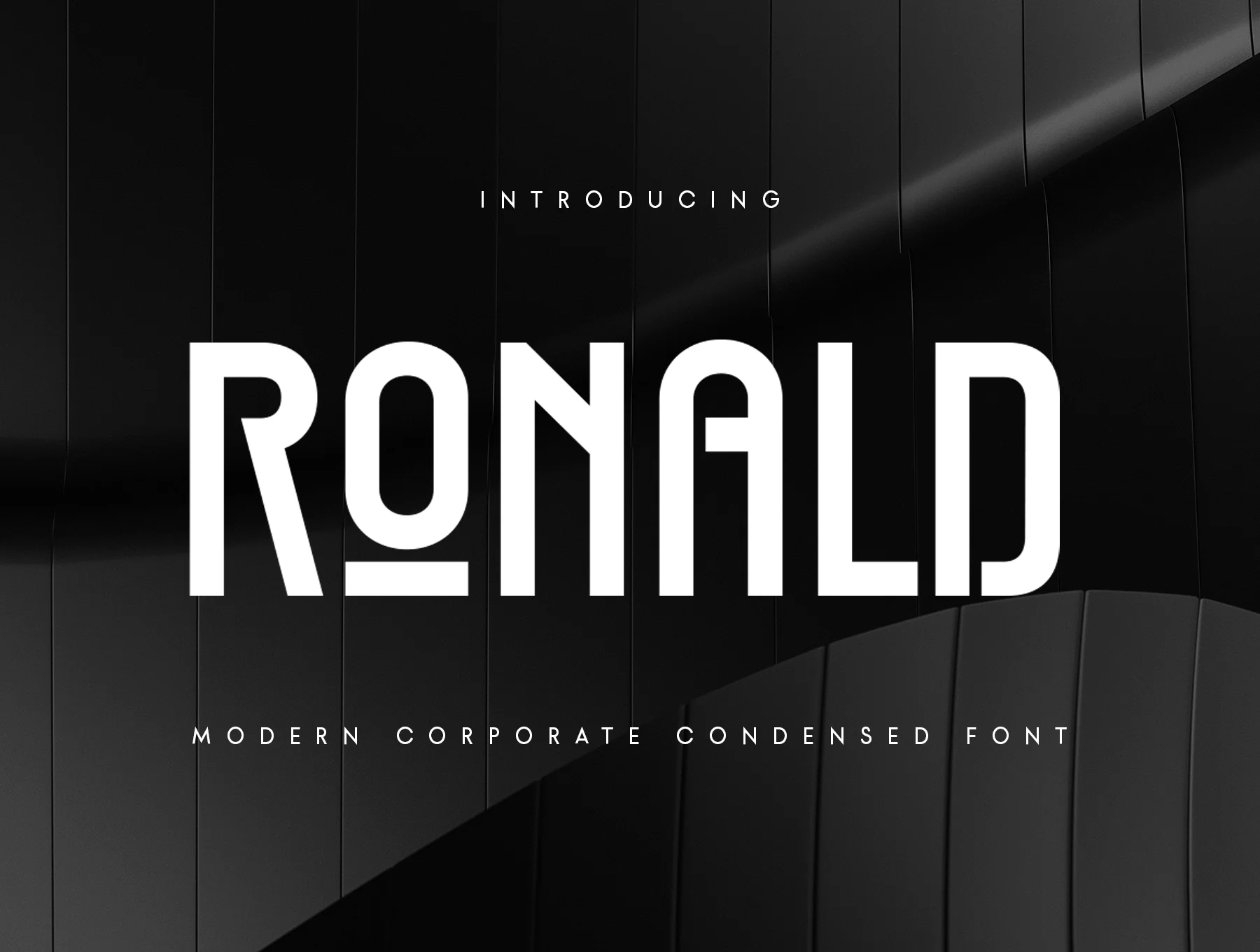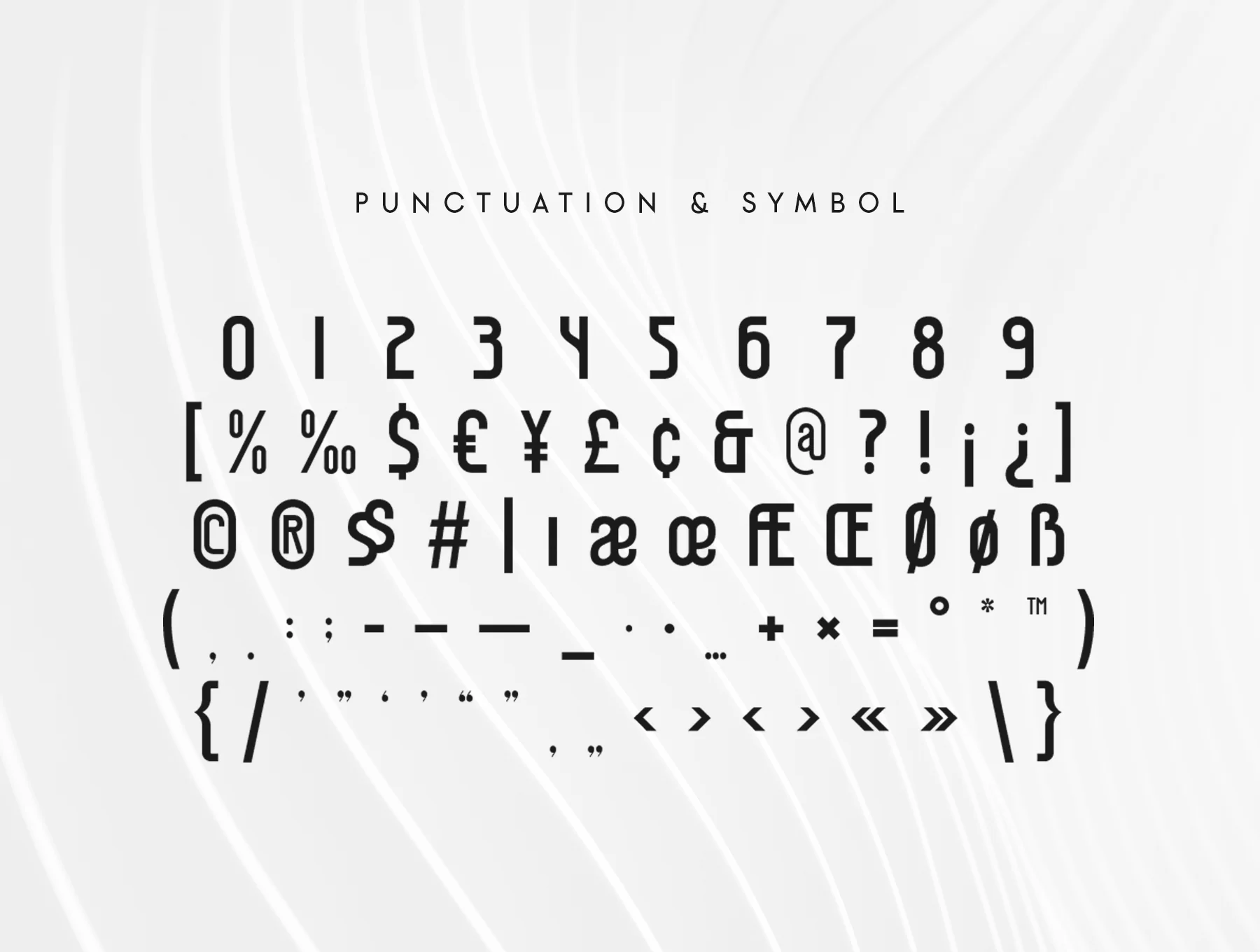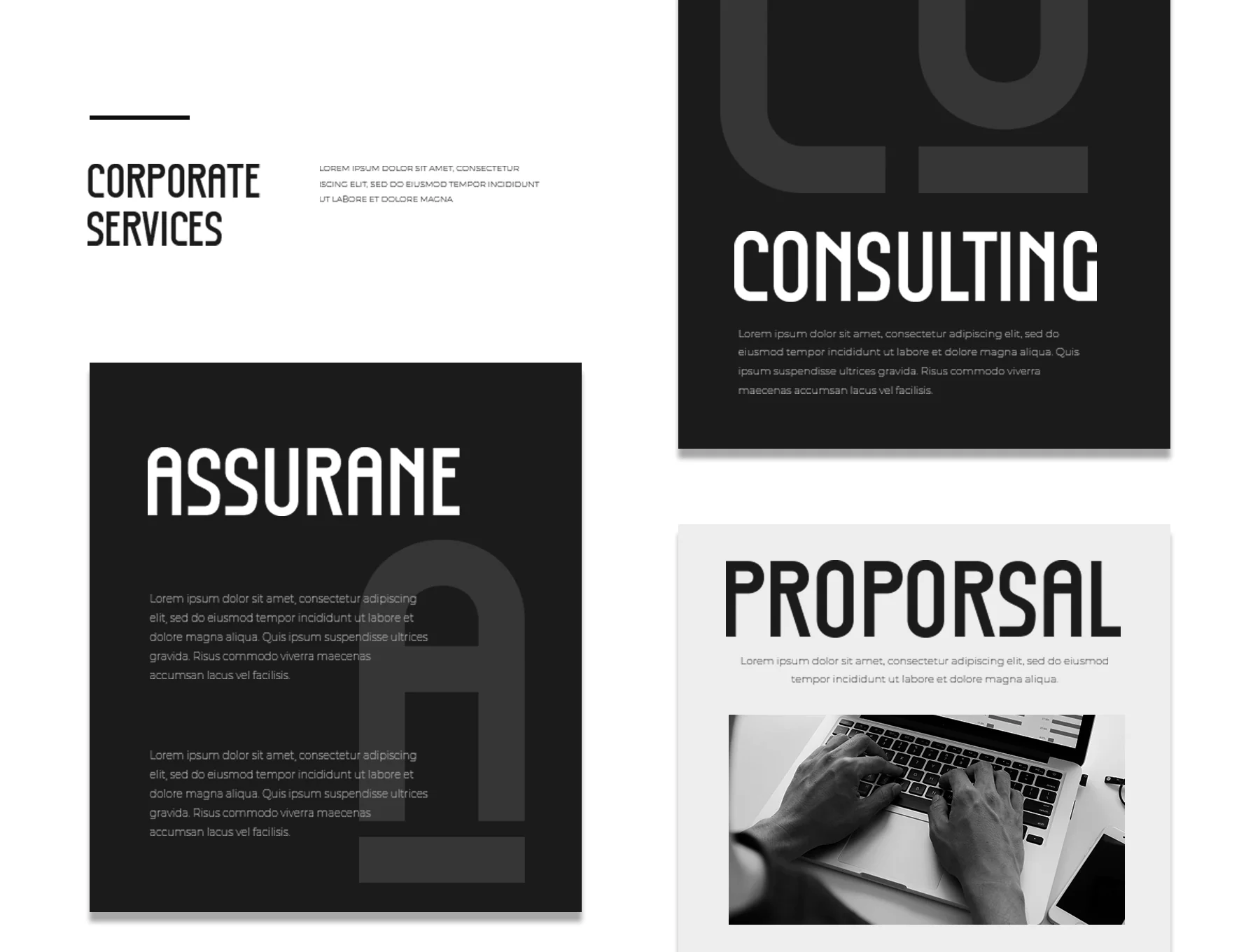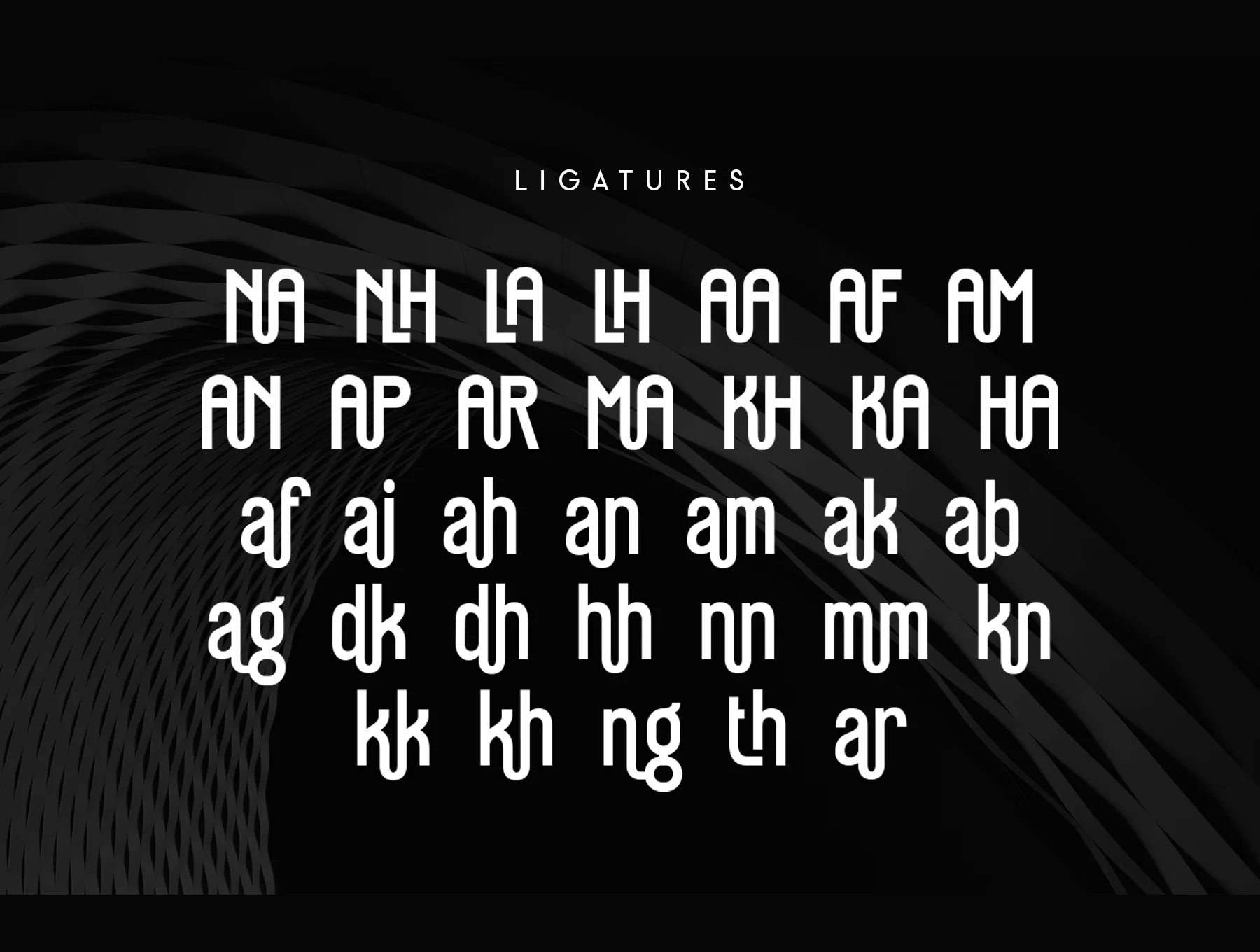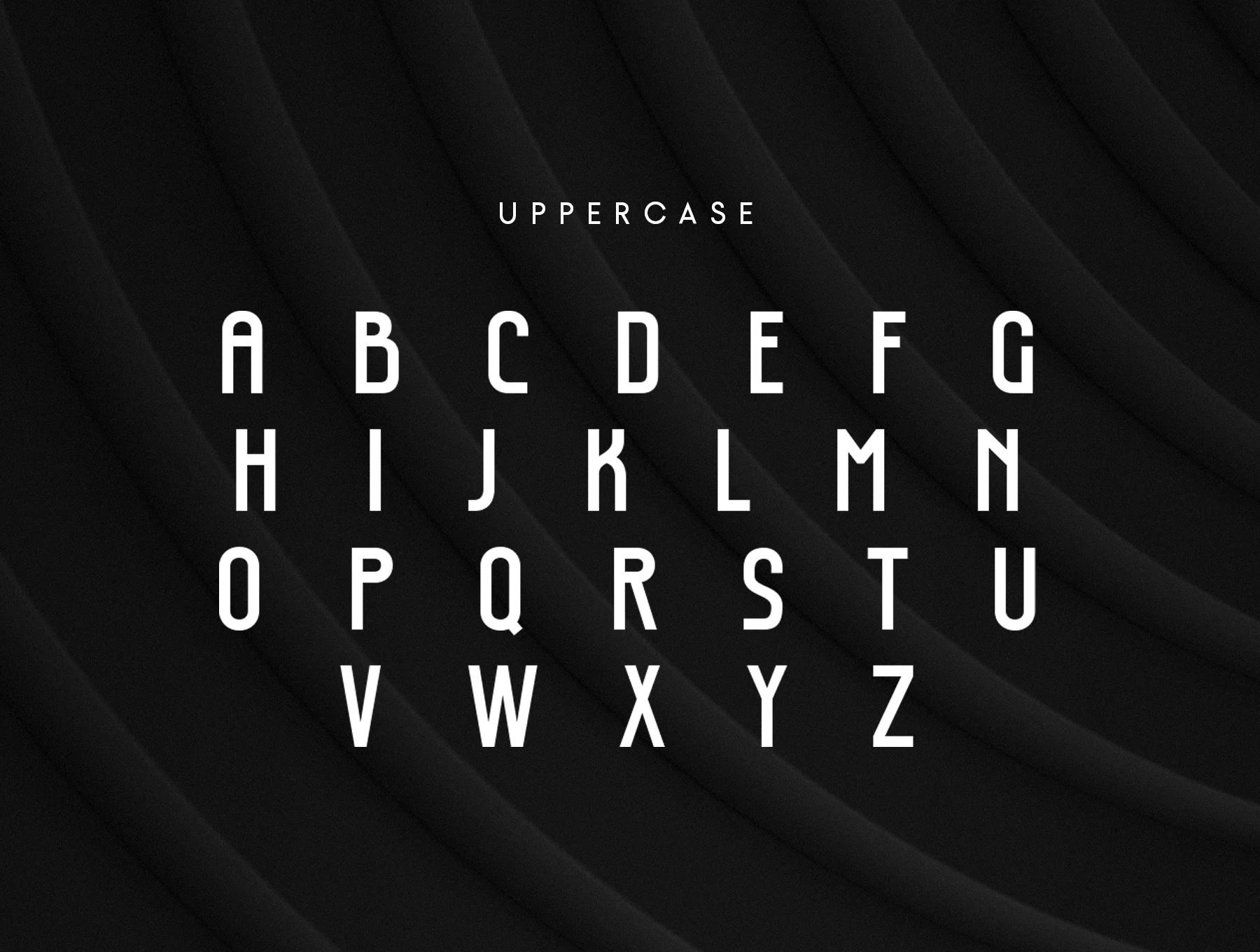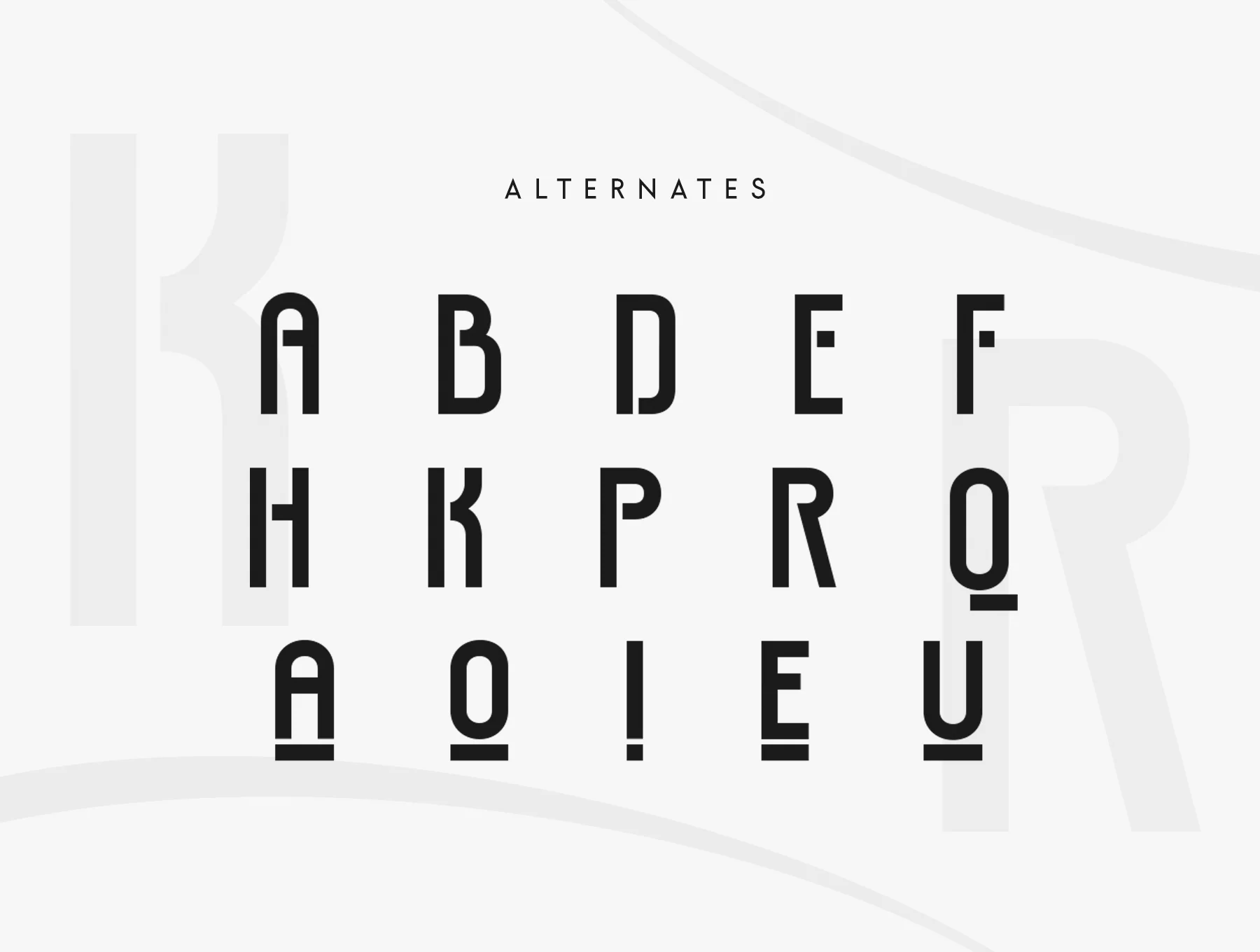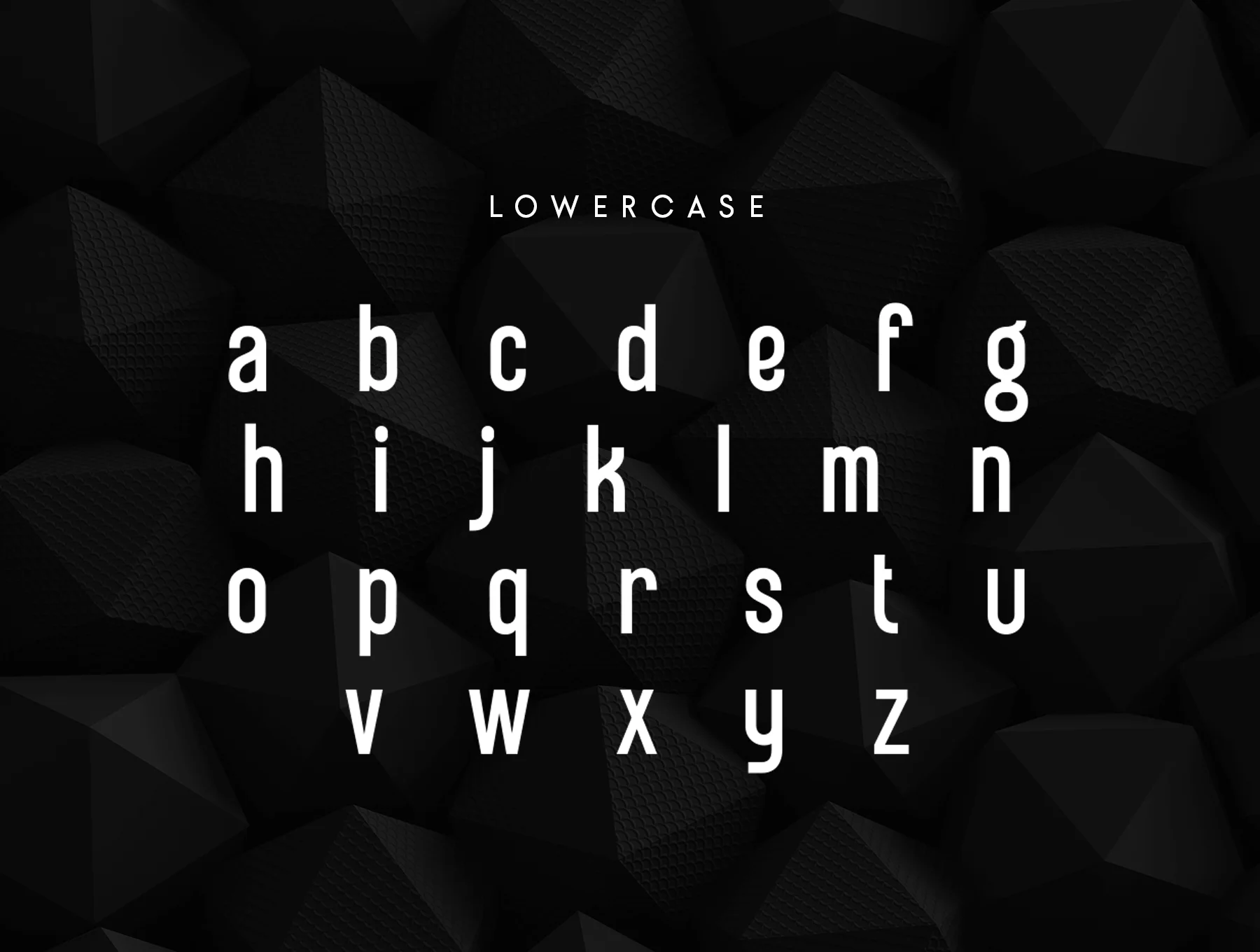
Ronald Font
Ronald - Sleek Condensed Corporate Font
Numbers and punctuation marks
Ligatures and stylistic alternatives
A fresh condensed sans serif font designed for headings, titles, and standout typography. Ideal for adding character to your style and giving headlines a strong visual focus. Crafted with a unique, modern feel, it helps any project express its main idea clearly.